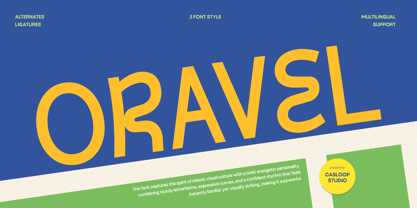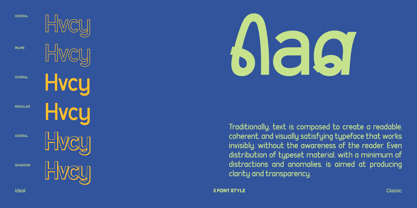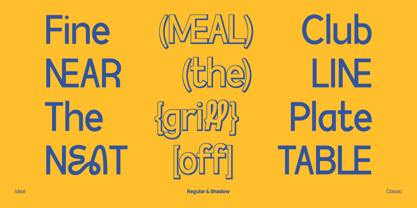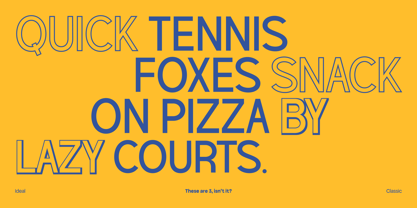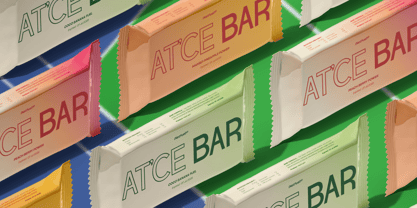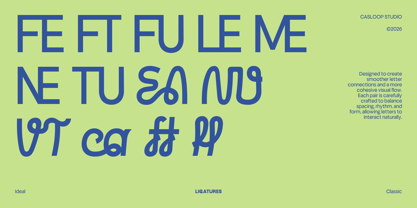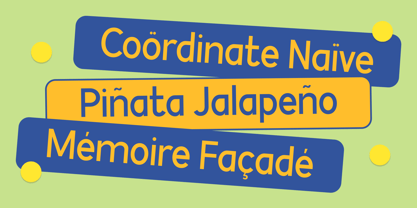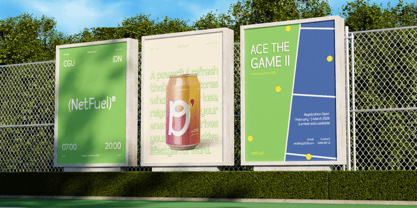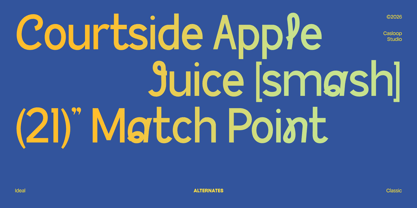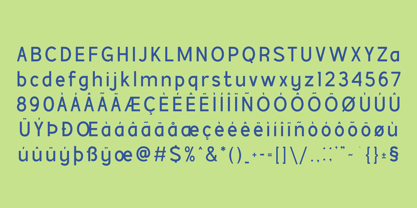
Oravel
by Casloop Studio
The Oravel Font Family was designed by Wantara Putra and published by Casloop Studio. Oravel contains 3 styles and family package options. More about this family
Oravel is a classic stylistic display font rooted in vintage sports aesthetics, crafted to feel bold, energetic, and instantly familiar. Its design highlights distinctive characters such as A, R, S, J, C, and Y, shaped with wide curves, rounded terminals, and a smooth visual rhythm that creates a strong yet approachable presence. This balance of expressiveness and clarity makes Oravel especially effective for logos, headlines, packaging, and promotional visuals that aim to stand out confidently while retaining a timeless, friendly appeal across sports, food, and classic branding contexts. Recommended pairing with: Playfair Display, Montserrat, Inter, Helvetica, Futura, Bodoni. Multilingual Supports: Bosnian, Catalan, Czech, Danish, German, English, Spanish, Estonian, Finnish, French, Irish, Croatian, Hungarian, Icelandic, Italian, Lithuanian, Latvian, Dutch, Norwegian, Polish, Portuguese, Romanian, Slovak, Slovenian, Albanian, Swedish, Turkish.